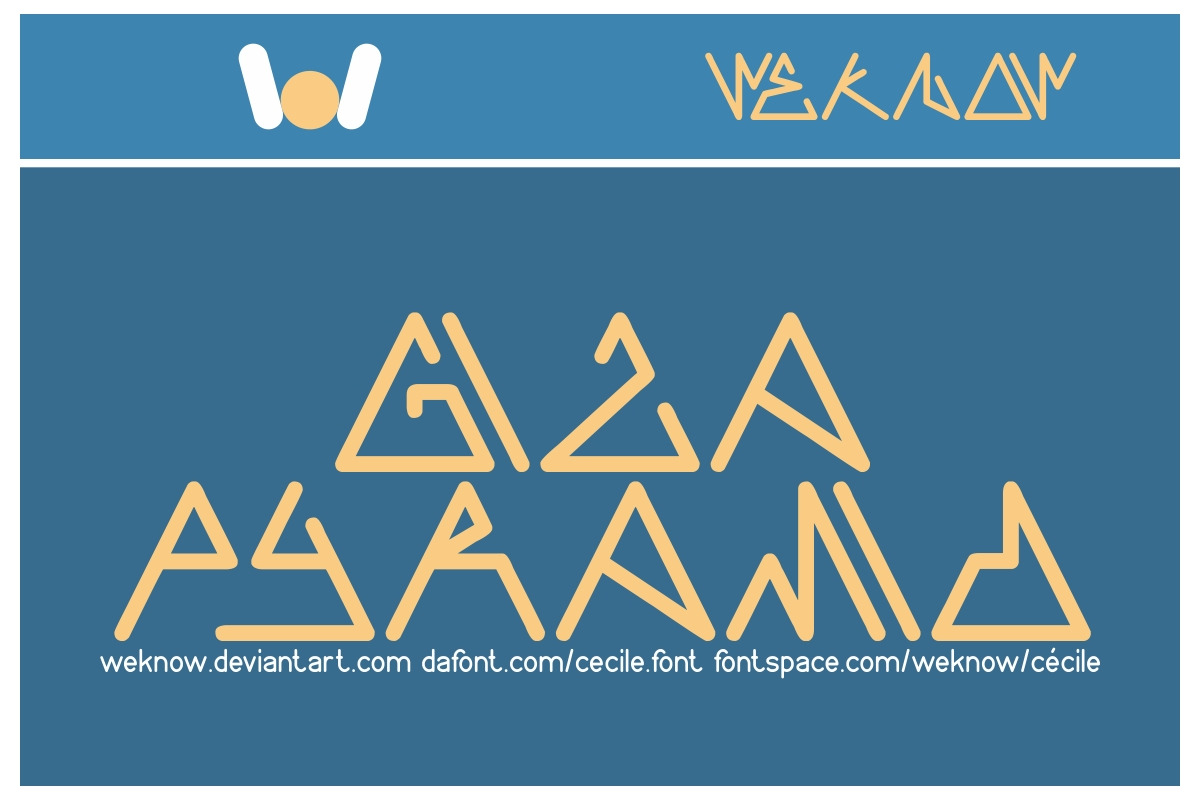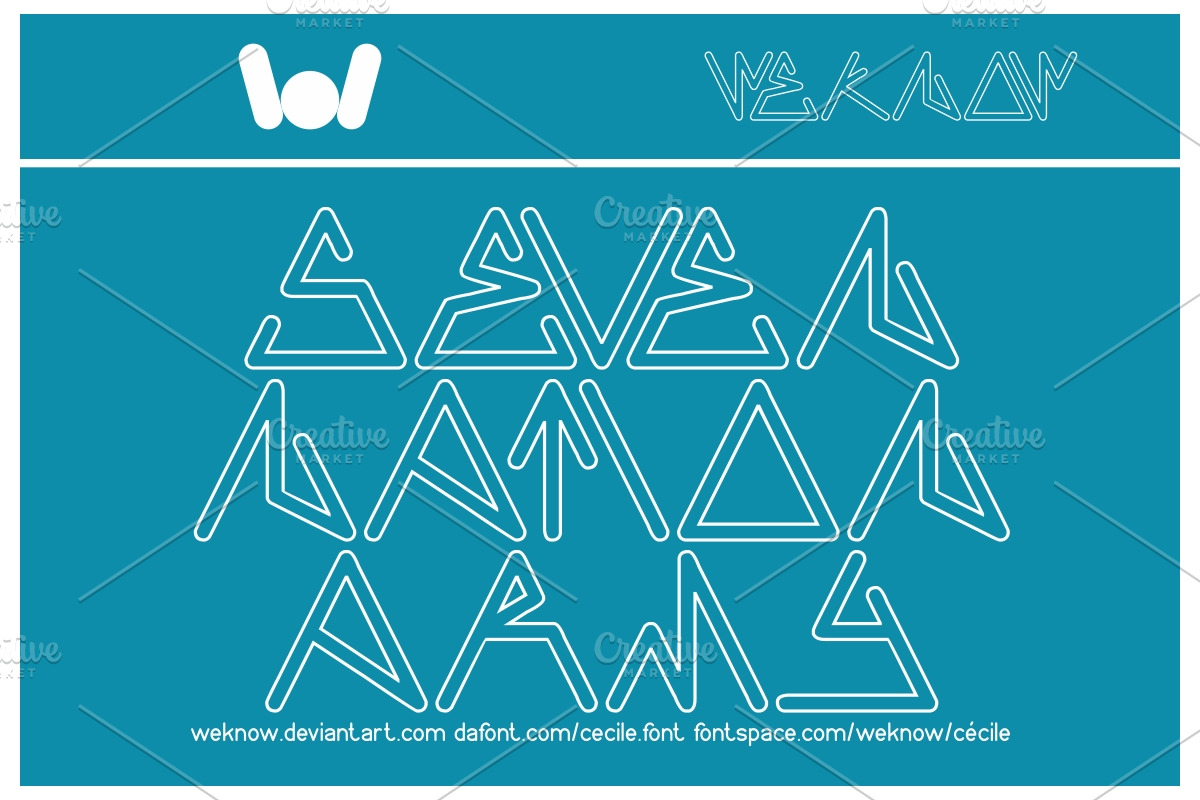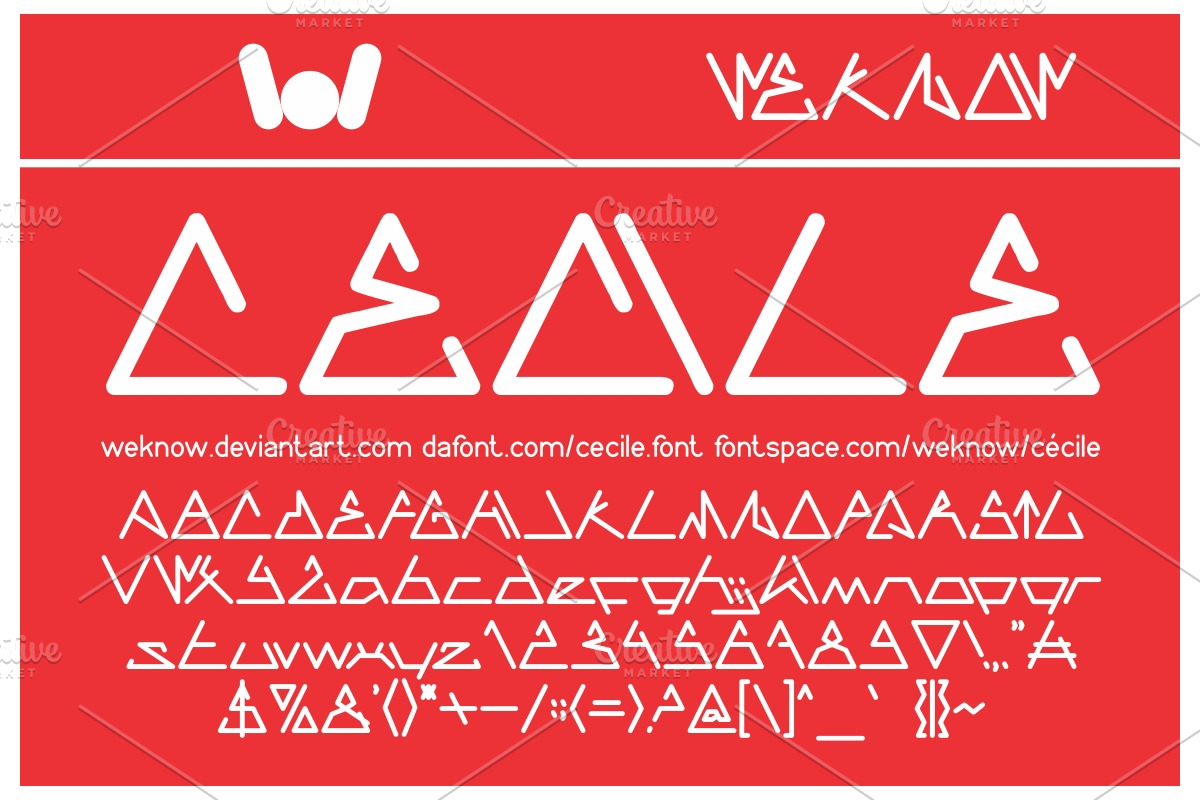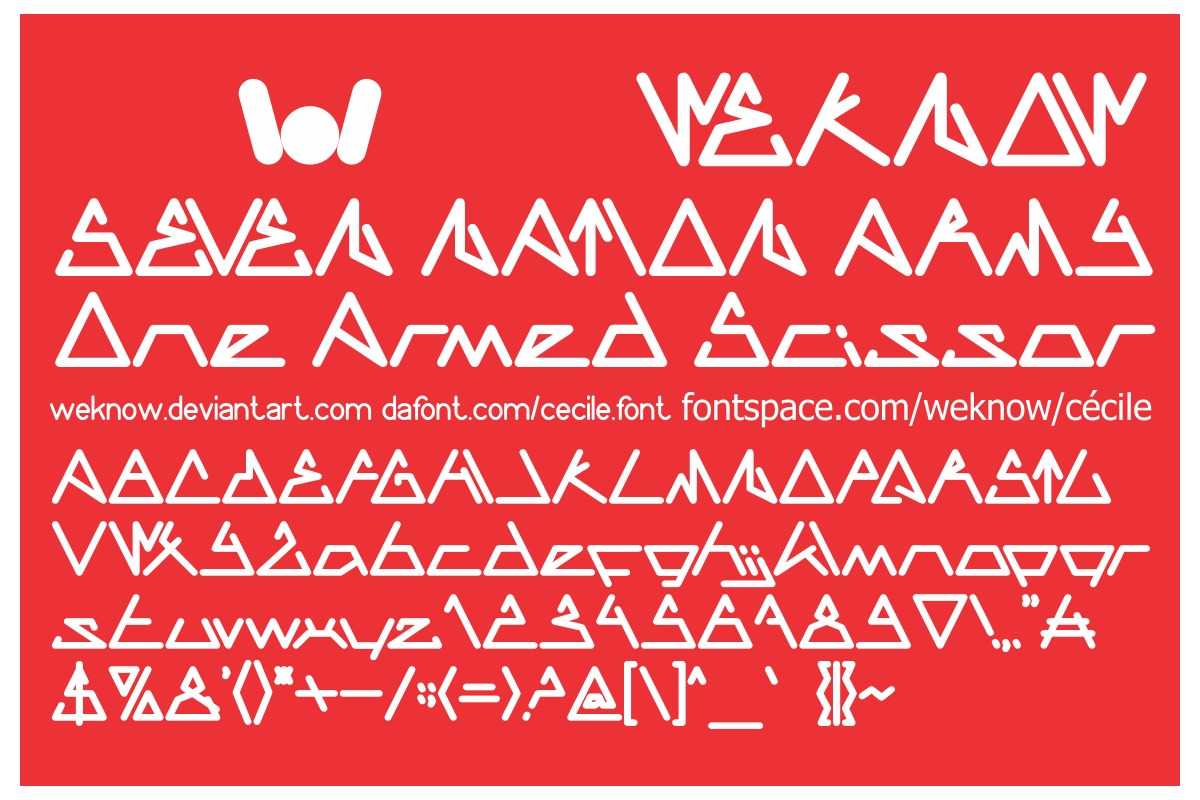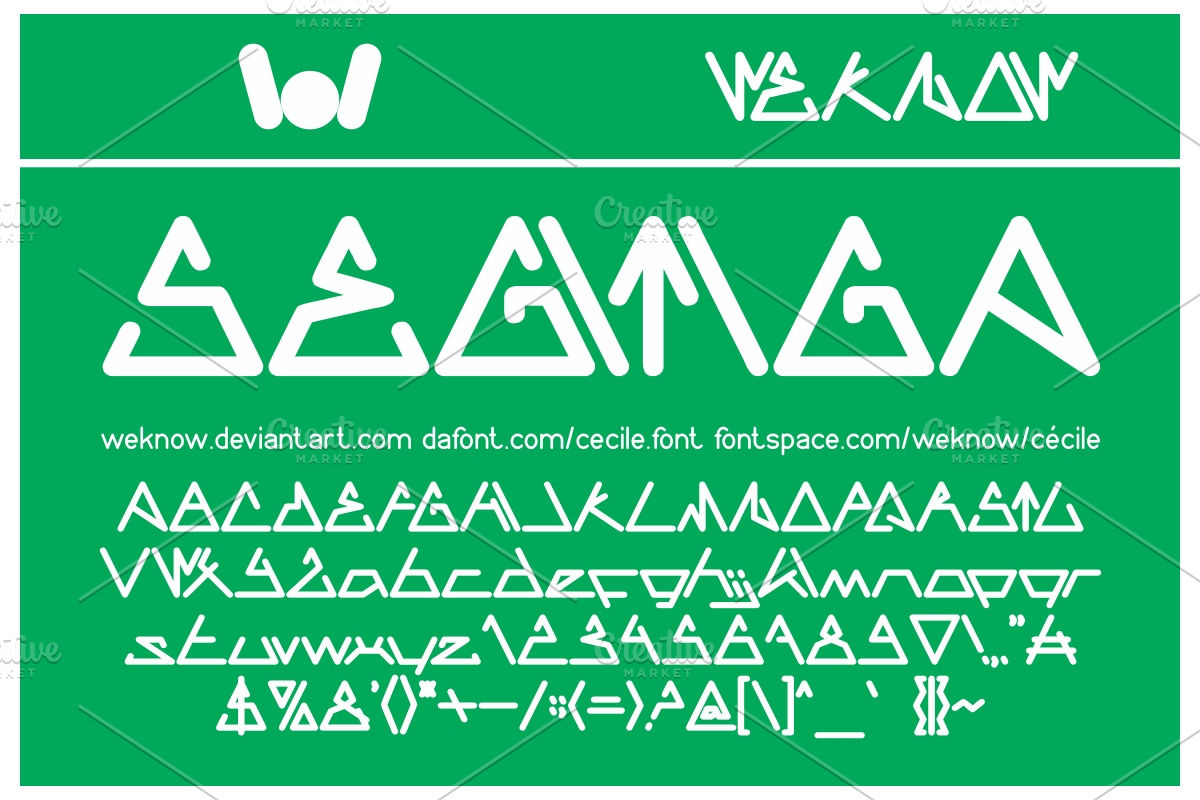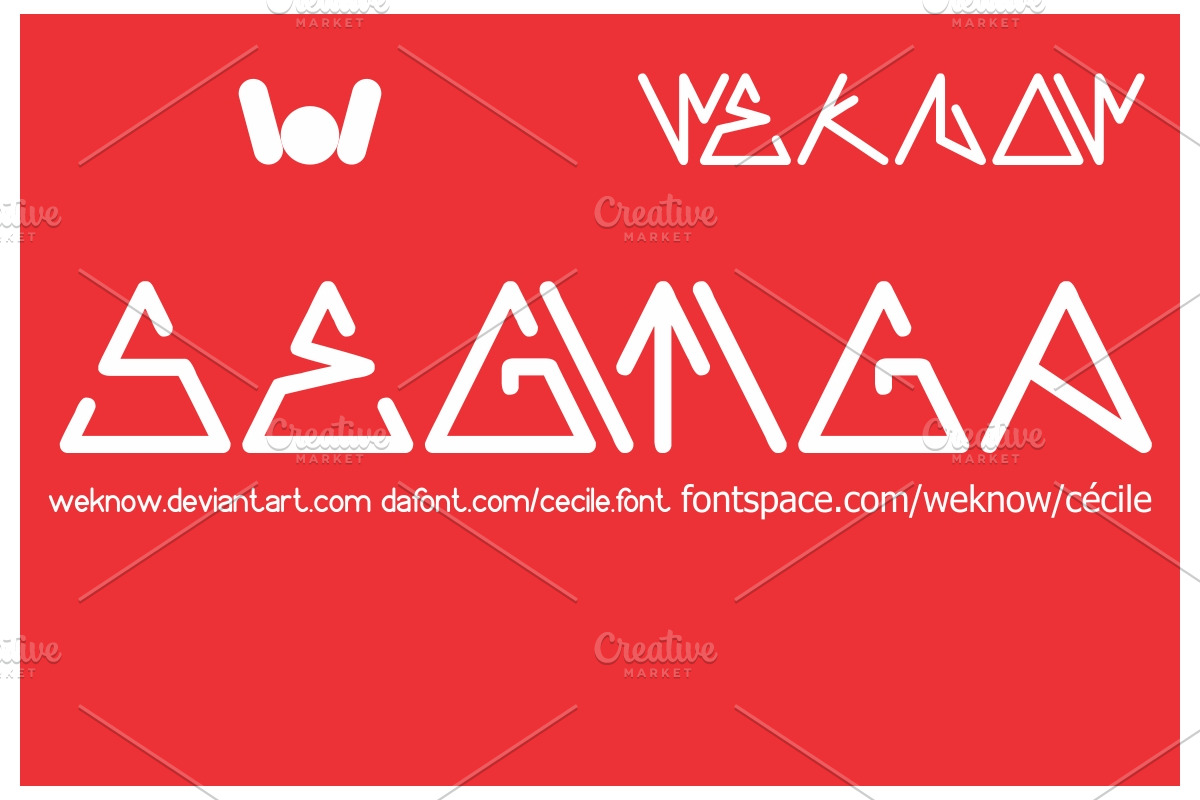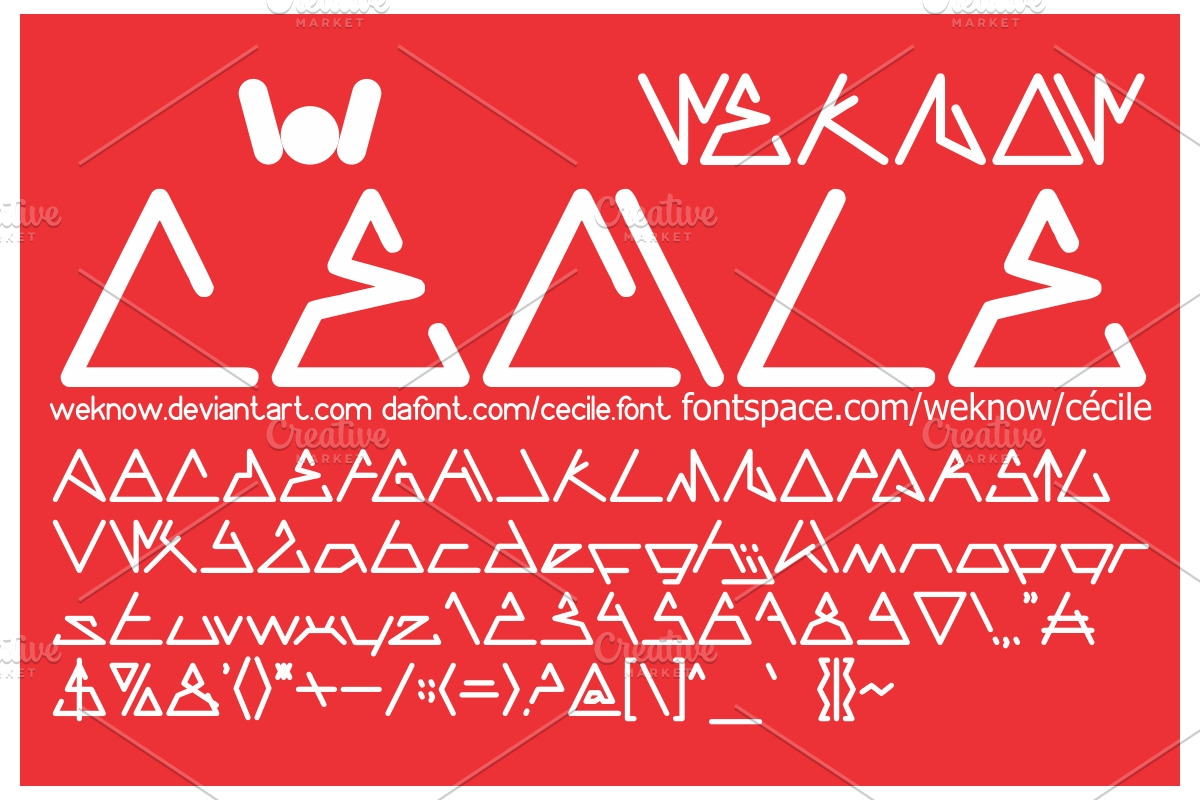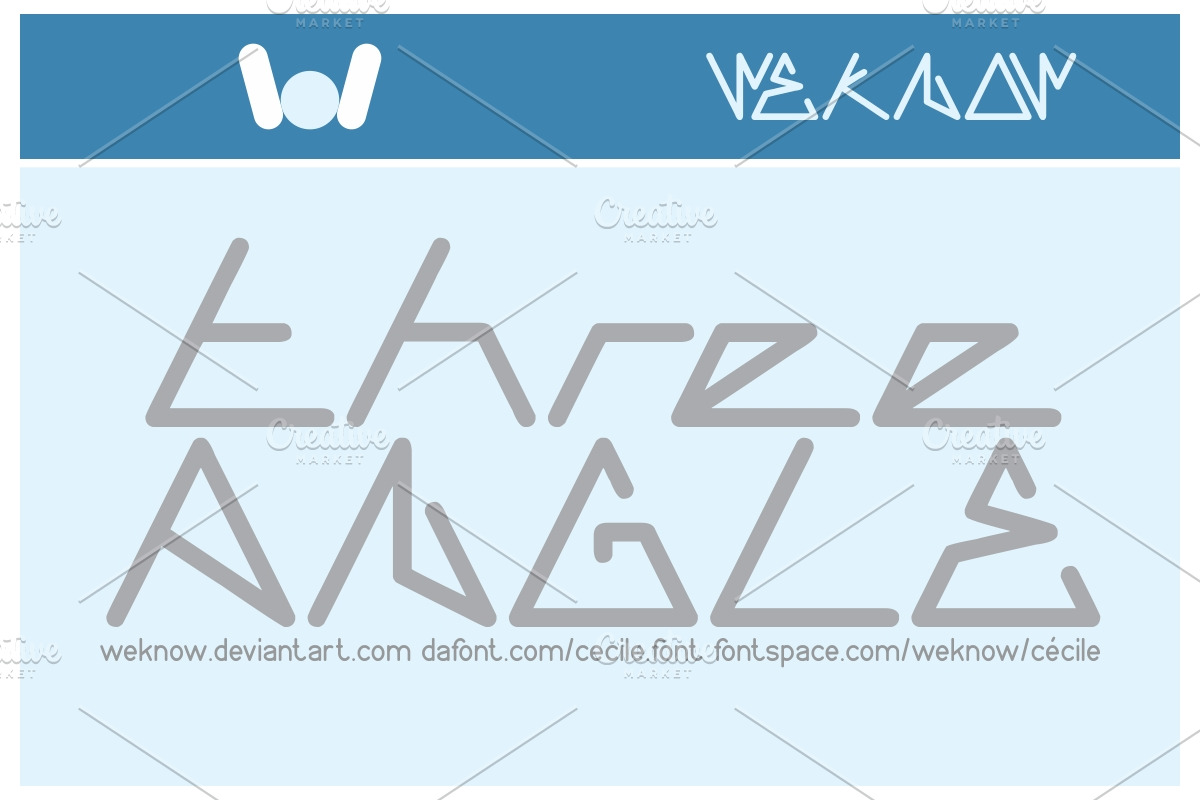
cecile font
available style: CECILE-Bold, CECILE-Hollow, CECILE-Hollow-Inverse, CECILE-Inverse
Why cecile font is worth a look
cecile font by weknow fits naturally into Branding, posters, packaging, typography.